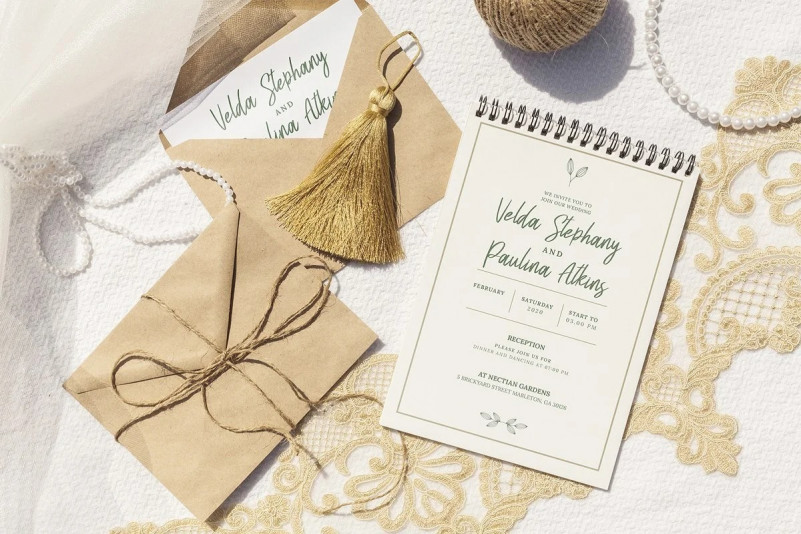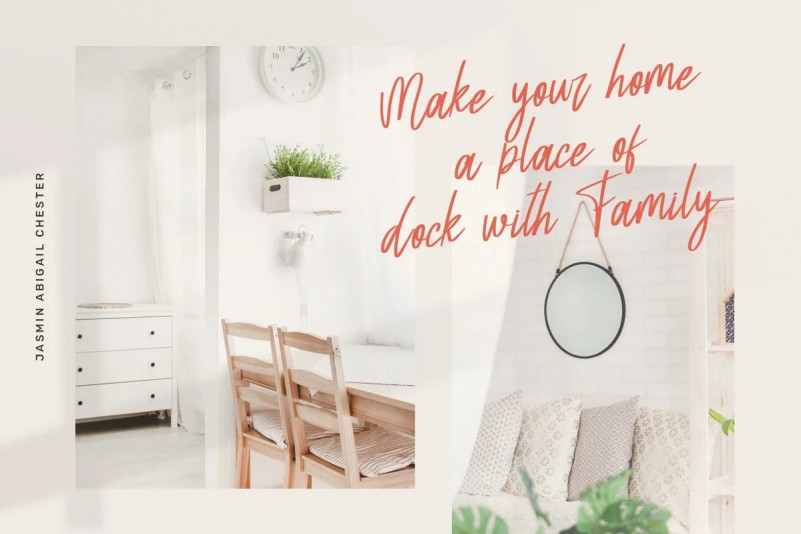
Winston Heyvante Font
Winston Heyvante Calligraphy font with magical pressure. i hope this font perfect for creating signature logos and watermarks for photography studio or wedding invitation,best for initial or branding logo signature .